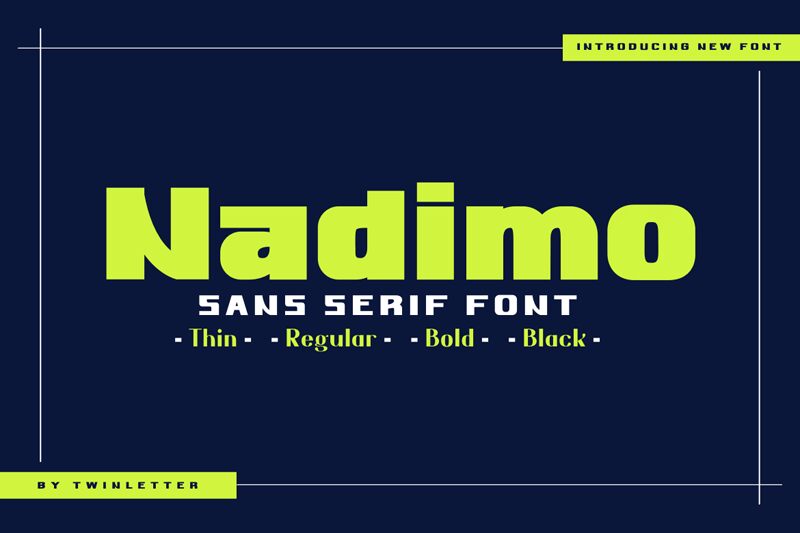
Nadimo, designed by twinletter, is a bold sans serif font with an expanded width that is perfect for projects looking to make a strong impact. This typeface exudes confidence and sophistication, making it an excellent choice for modern branding, editorial design, and advertising campaigns. Its bold lines and wide letter spacing give Nadimo a commanding presence on any medium - from digital to print. Whether you're working on a website, packaging design or social media graphics, this font will elevate your message and leave a lasting impression. Try Nadimo today and see your project come to life with its powerful aesthetic!